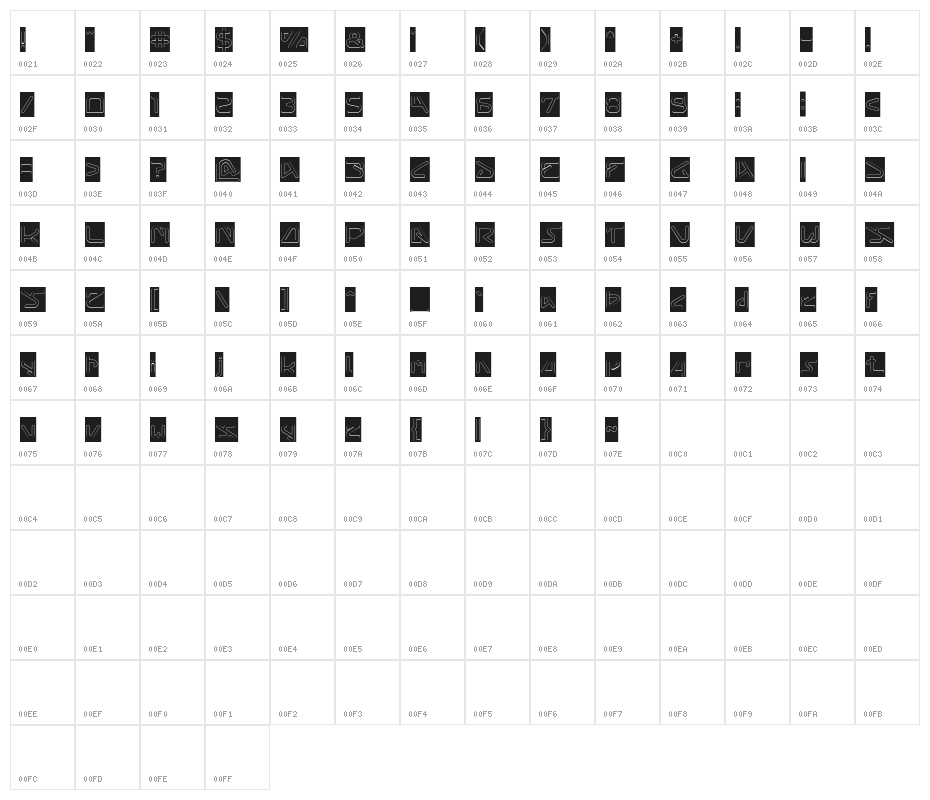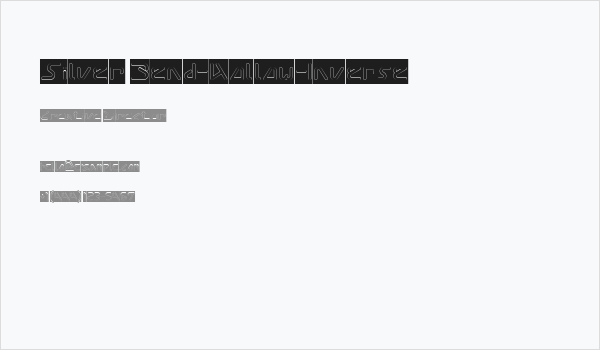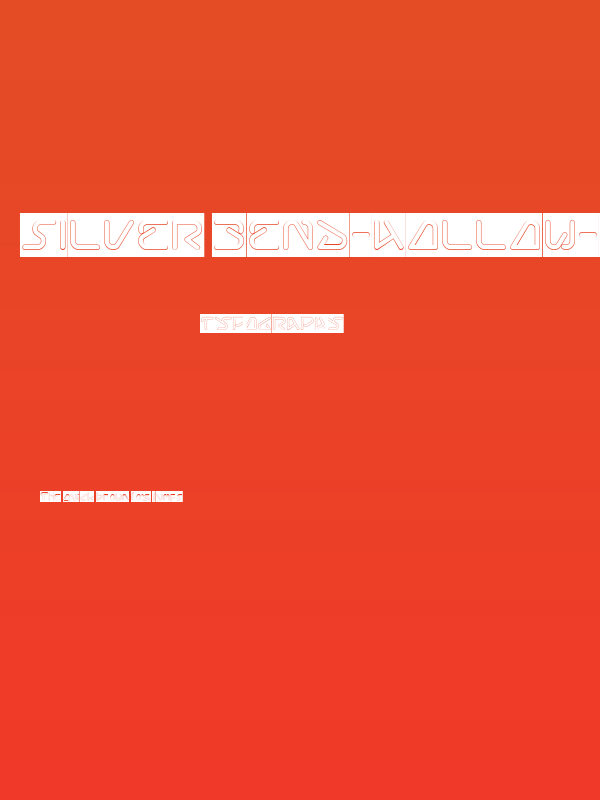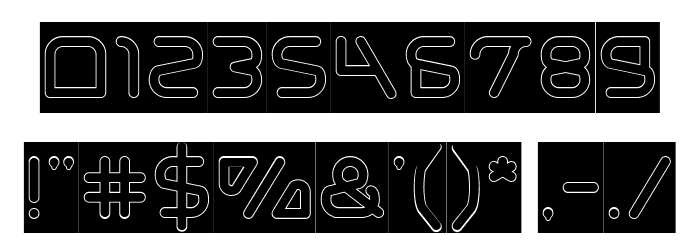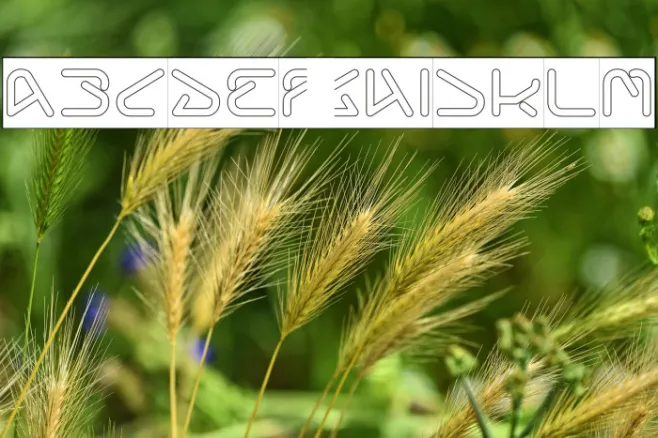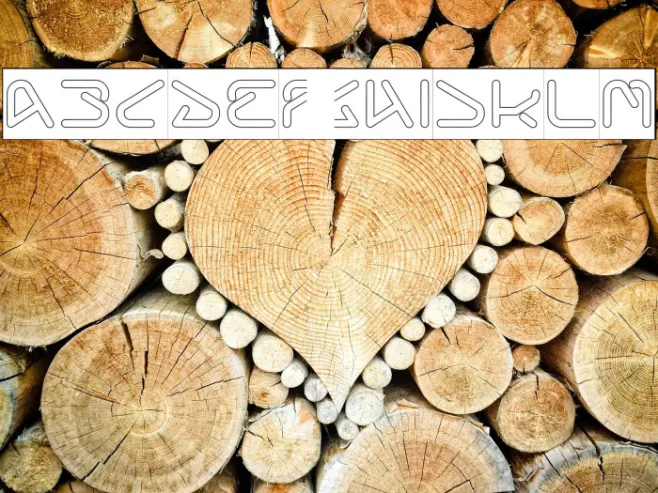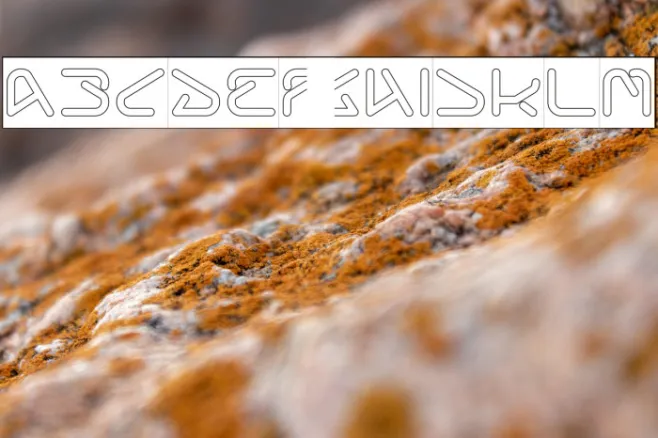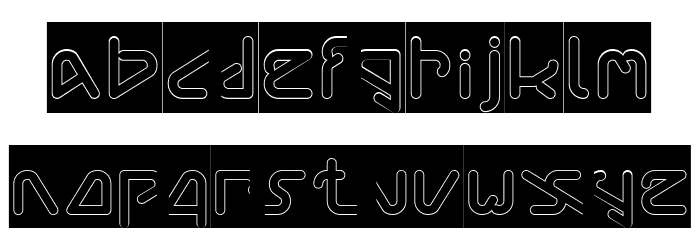
Silver Bend-Hollow-Inverse Font
Silver Bend-Hollow-Inverse Description
This font features a unique hollow design with a futuristic and geometric style. Each character is constructed with a continuous line that forms the outline, creating a sense of depth and dimension. The uppercase and lowercase letters maintain a consistent aesthetic, with rounded edges and smooth curves. The numerals and special characters follow the same design principles, ensuring uniformity across the entire typeface. The hollow nature of the font gives it a light and airy appearance, making it stand out in digital and print media.
| Proposed Projects | Ideal for sci-fi themed projects, modern branding, digital artwork, and innovative advertising campaigns. |